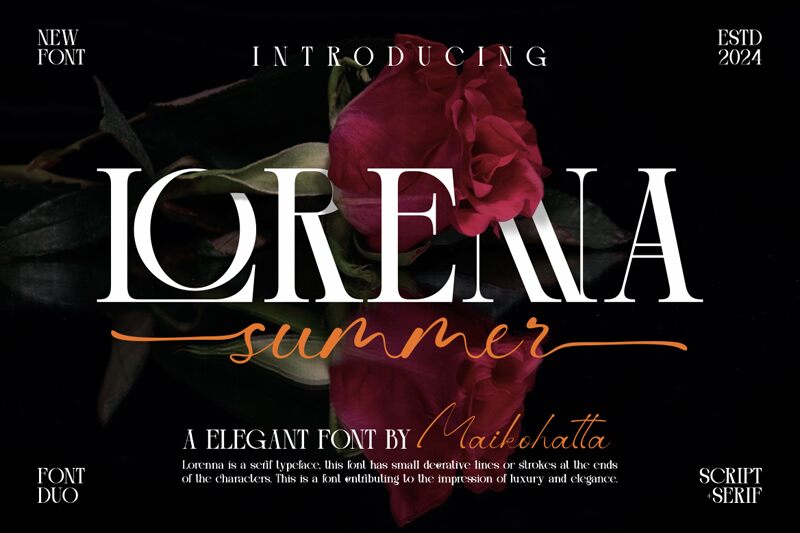
Lorenna Script
Lorenna Script font by Gilang Ternadho is a handwritten signature font with a light, elegant design. This flowing typeface captures a sophisticated and graceful aesthetic, providing a nostalgic charm. Its natural look is further complemented by the smooth ligatures.
Free Lorenna Script can be used for digital signatures, watermarking images, invitations and wedding cards as well as other stationary-related products. Additionally use it for business cards and websites or blog designs. It’ll blend in beautifully within interior designs, clothes labels, cosmetic product packaging and more.